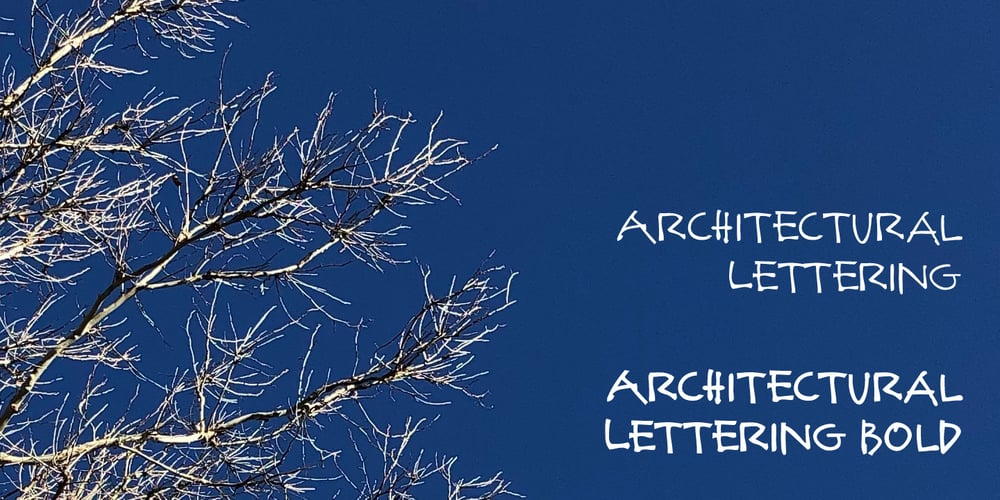
Architectural Lettering Font Family was designed by Rae Kaiser and published by Outside the Line. Architectural Lettering contains 2 styles and family package options. This font is for architects everywhere. This all cap font was created for use with CAD programs. It gives the handlettered look of old to computer generated blueprints. Architectural Lettering Bold is the heavier weight for Architectural Lettering. This additional weight makes a best selling font even more versatile. It has all the international currency symbols. Architectural Lettering Regular was redesigned in 2006 to include the same. It can be found in the book “Indie Fonts 3, a Compendium of Digital Type from Independent Foundries”.